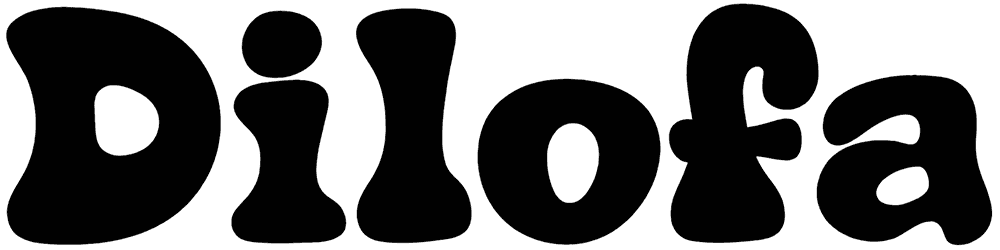
Dilofa Font
If you are in the middle of a very critical project that requires a special groovy font, then a magical masterpiece such as Dilofa can be your superior game-changer.
This marvelous artwork comes with wavy and crooked letters, so it can easily convey a vibe of jauntiness, grunge, tenderness, and vivacity to the audience’s minds. It would be better to overlook the lack of numbers and pick up this font for your illustrations, magazines, branding, logos, or flyers.